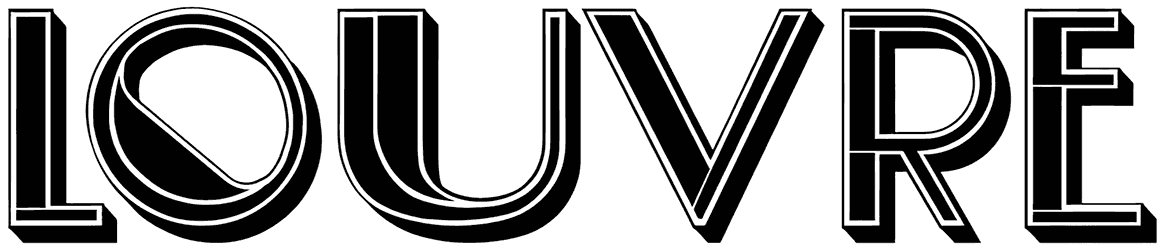
Louvre Font
Download Louvre, a fancy art deco font with a nice two different 3D styles, which can give your projects or presentations a new look. It only supports uppercase letters, but it has an interesting and bold design that works well for a variety of signs and artwork that are a little unusual.